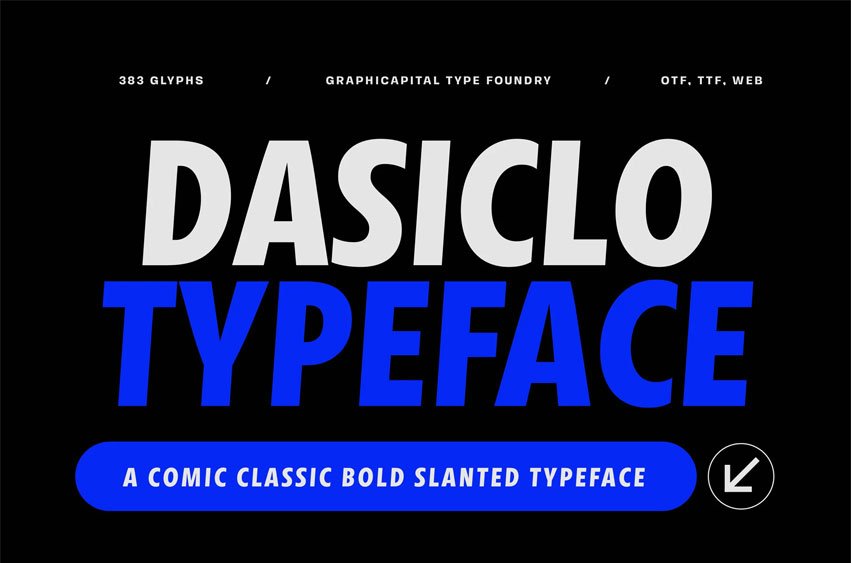
Dasiclo Typeface Font is a bold sans serif font with an italic/slanted style, delivering a strong and energetic look, making it the perfect choice for headlines, posters, and sporty vibes.
Ideal for branding, posters, headlines, packaging, album art, game visuals, and promotional designs. It adds personality to any creative project and helps your message stand out effortlessly.